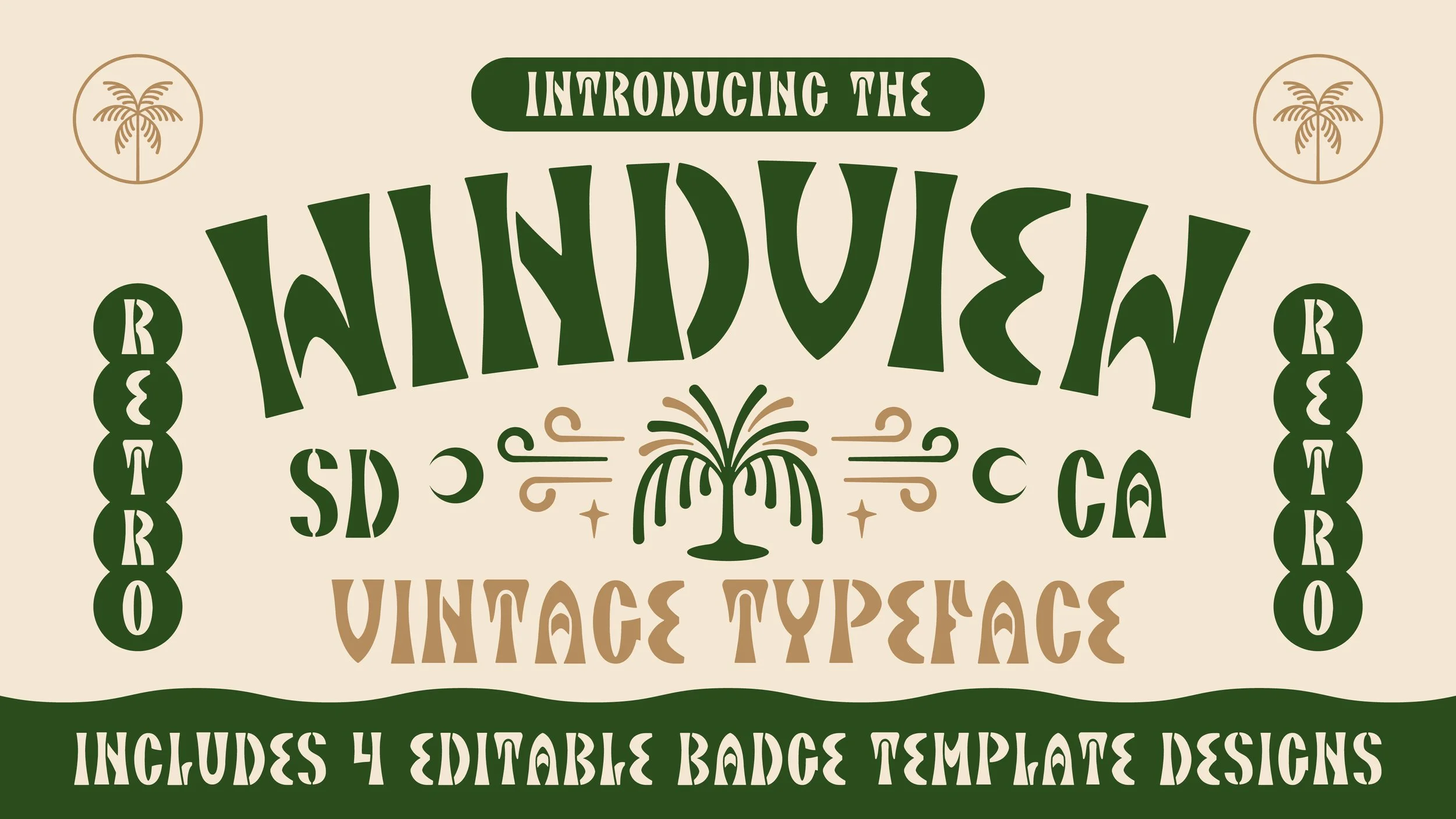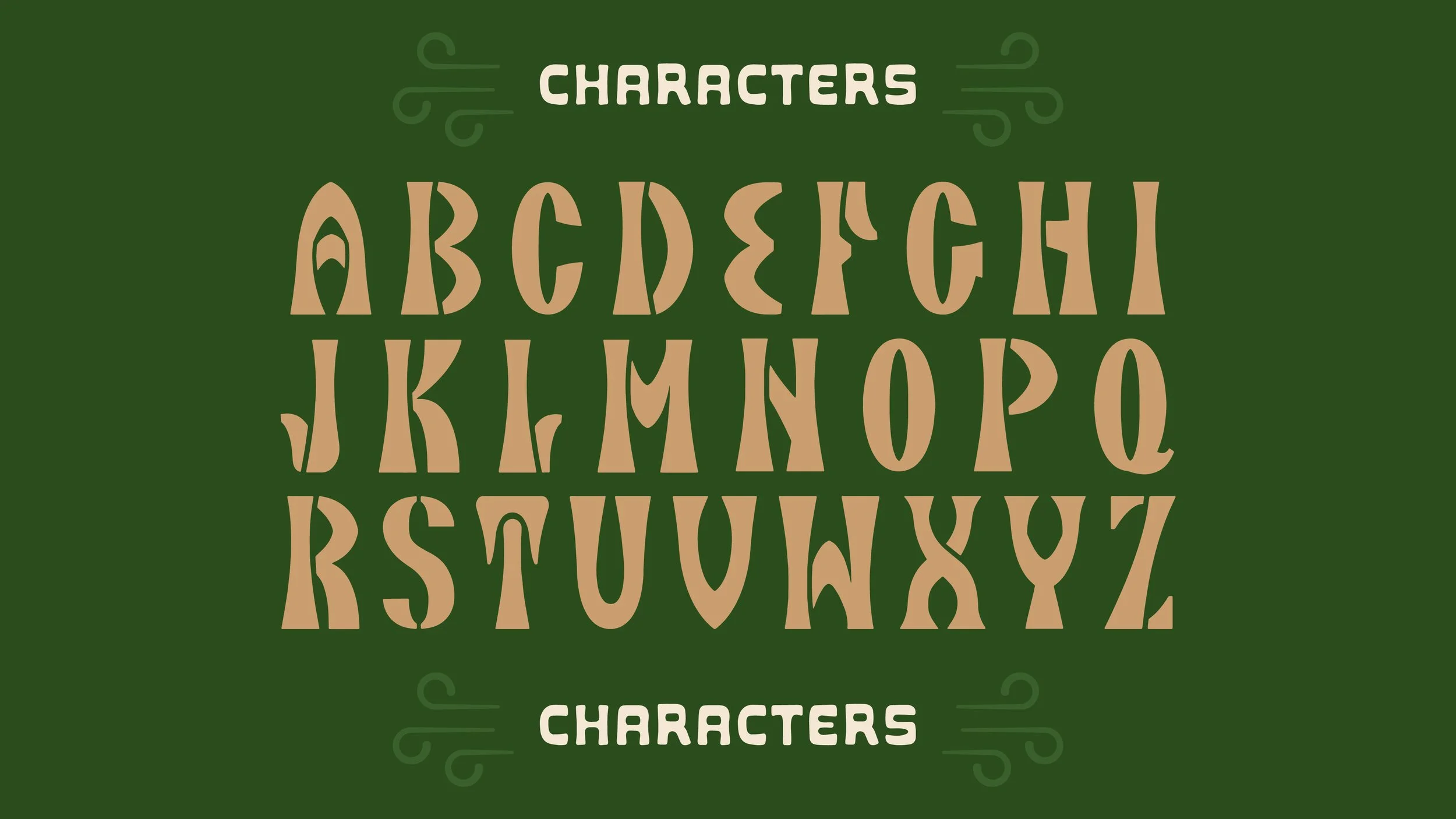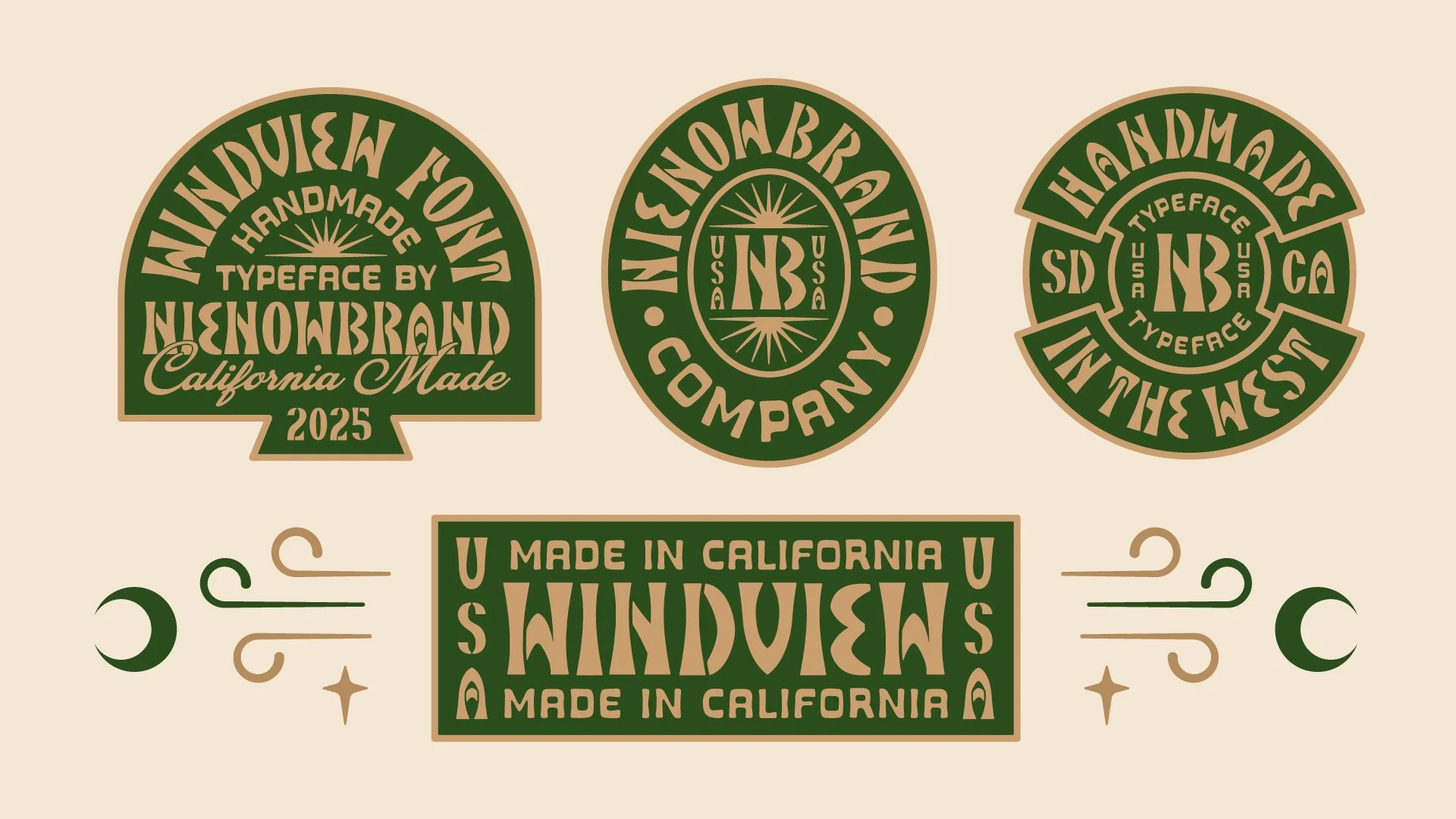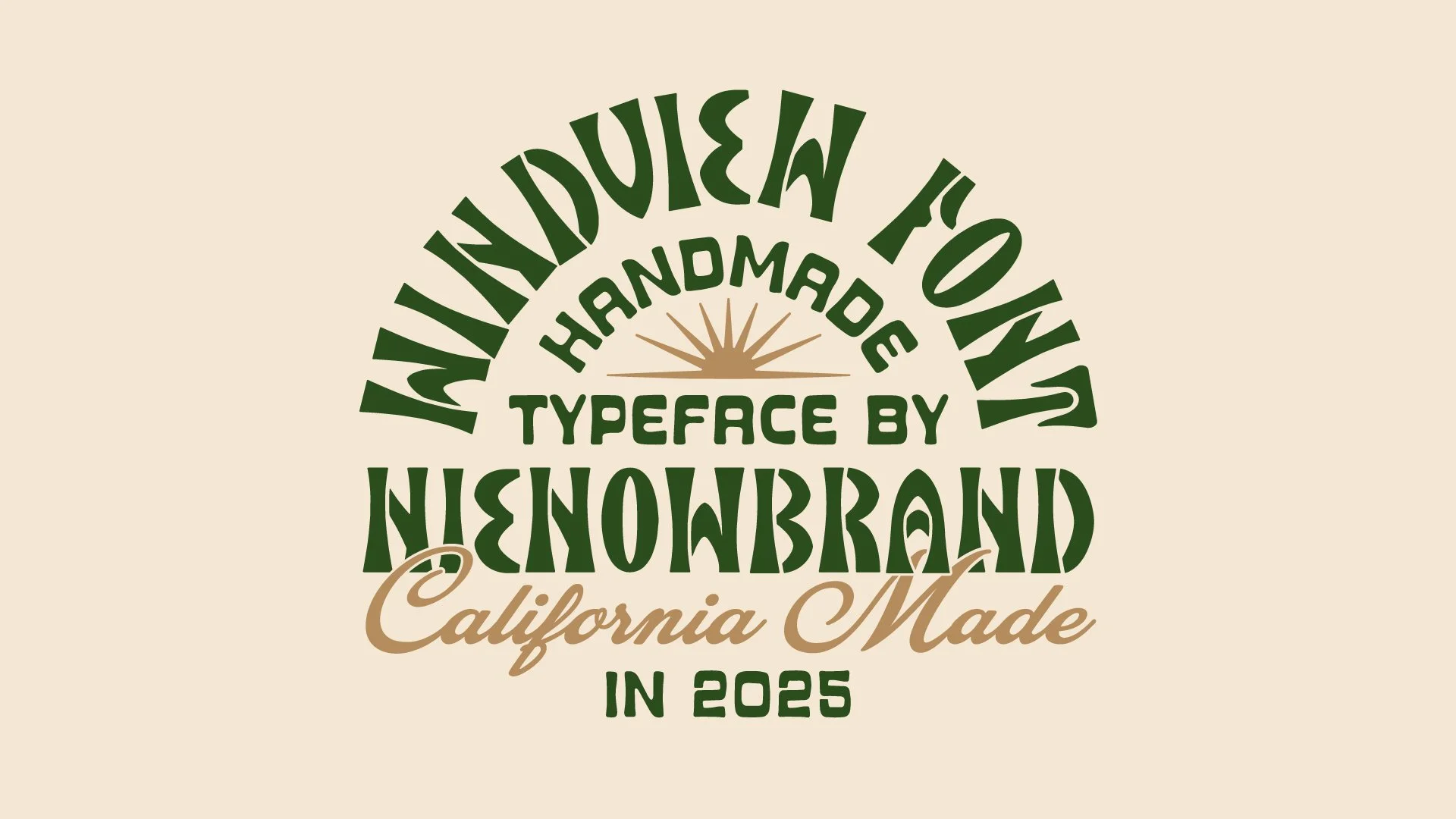
Windview Typeface
The Windview Typeface is here! A vintage display font inspired by the timeless look of classic stencil lettering with a breezy coastal vibe. This typeface includes 4 Adobe Illustrator compatible badge designs.